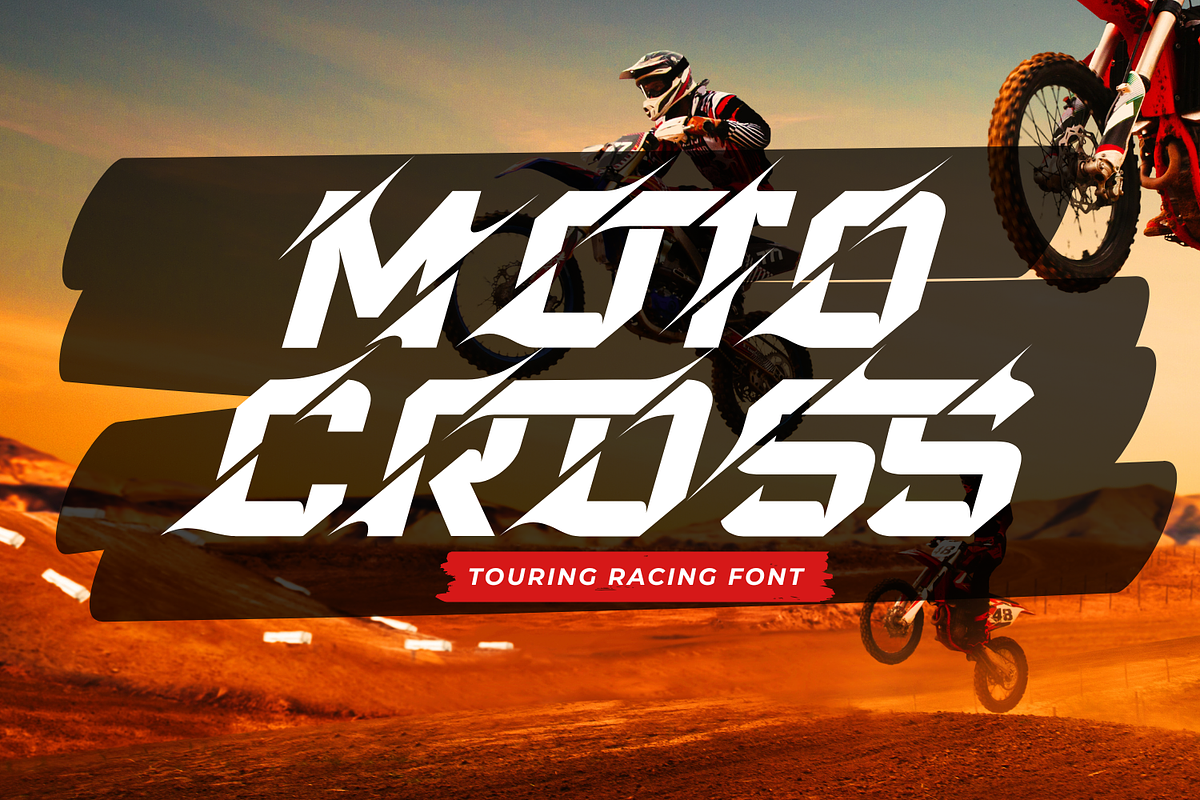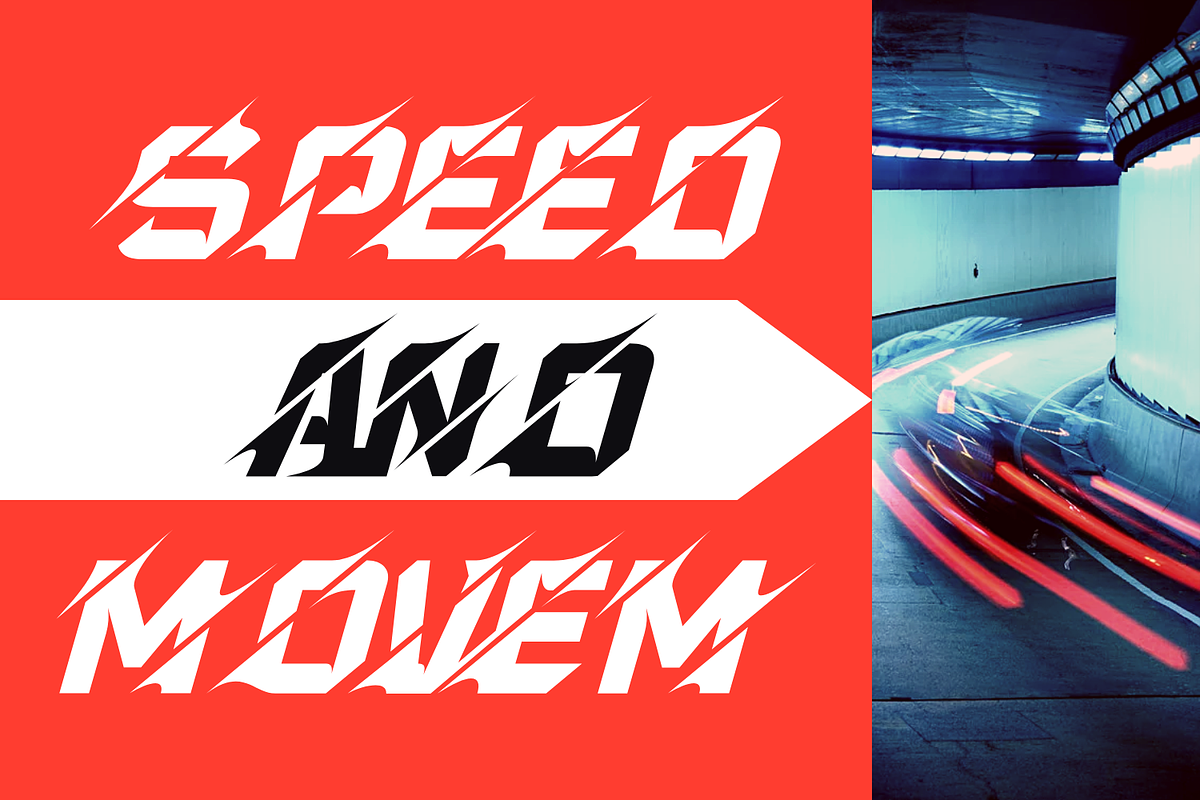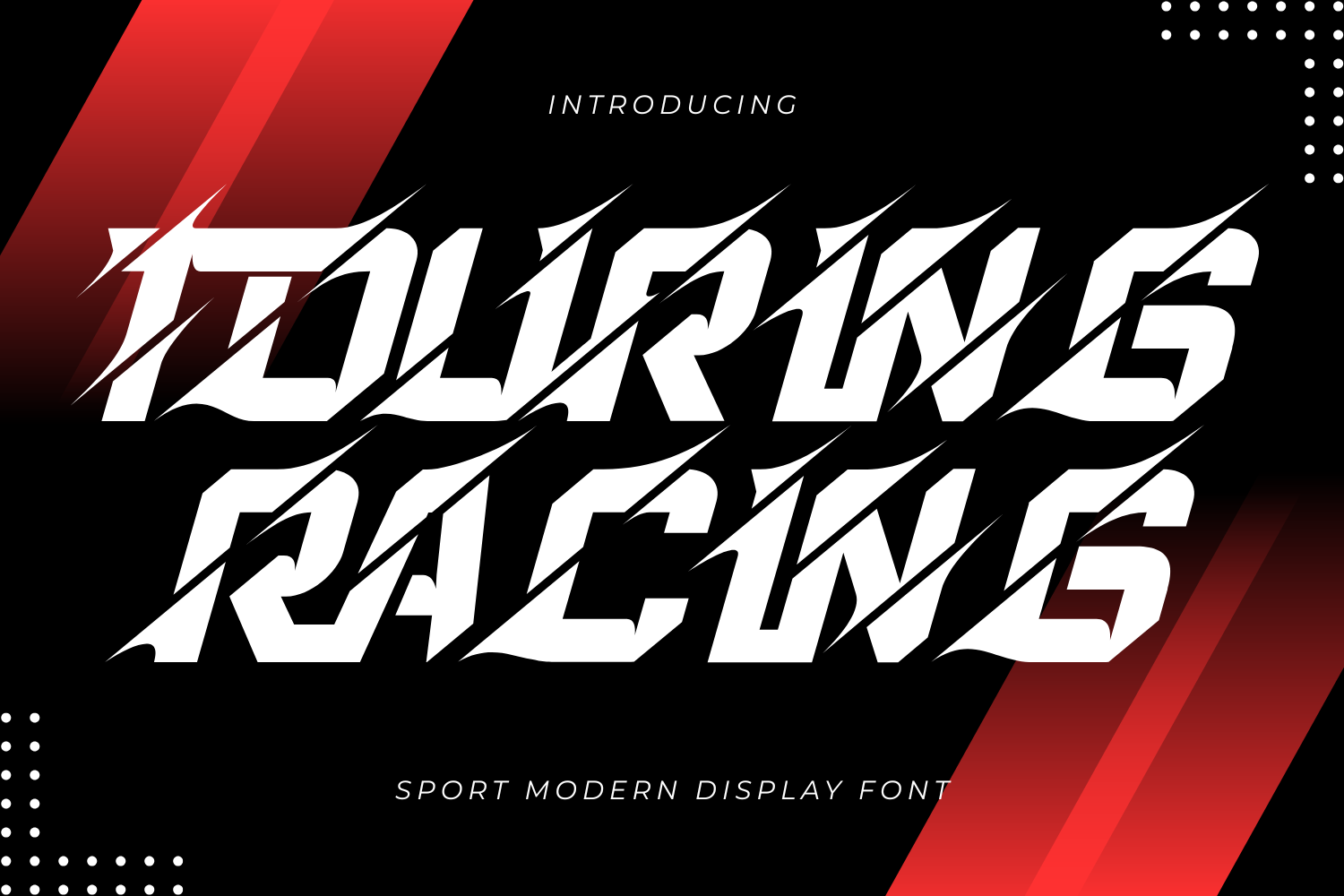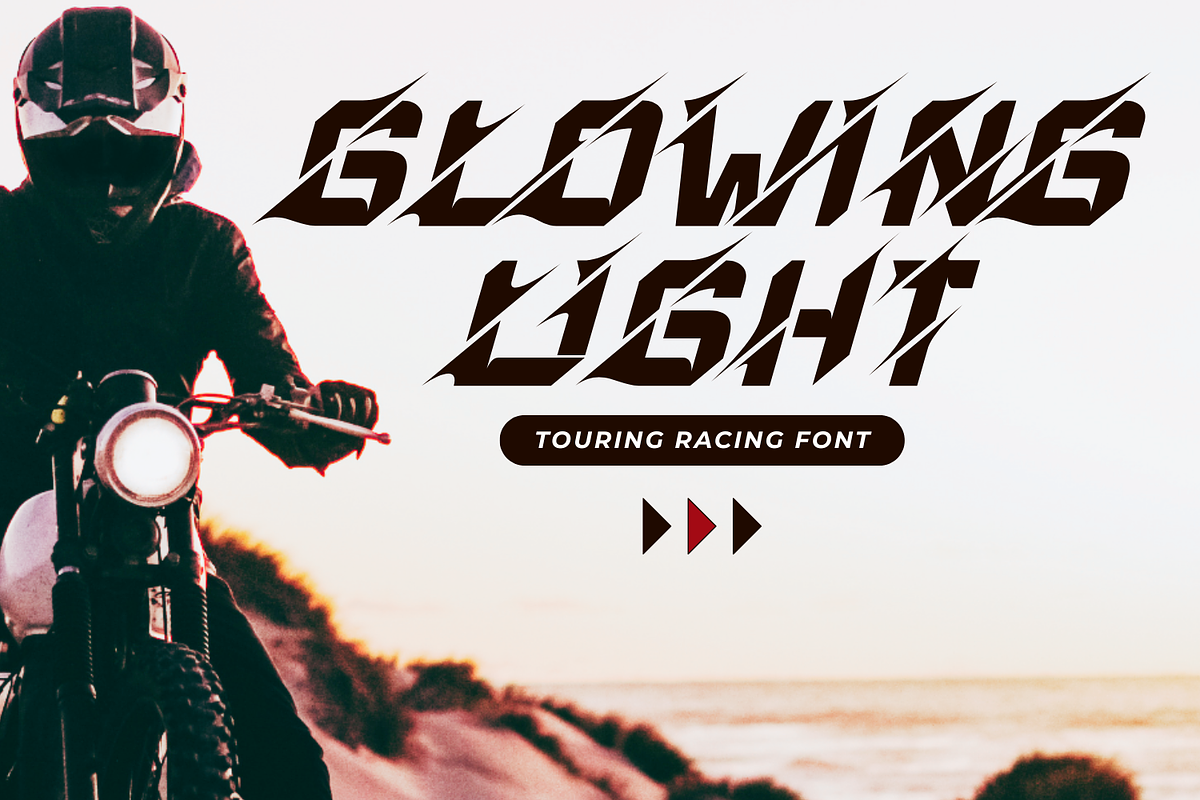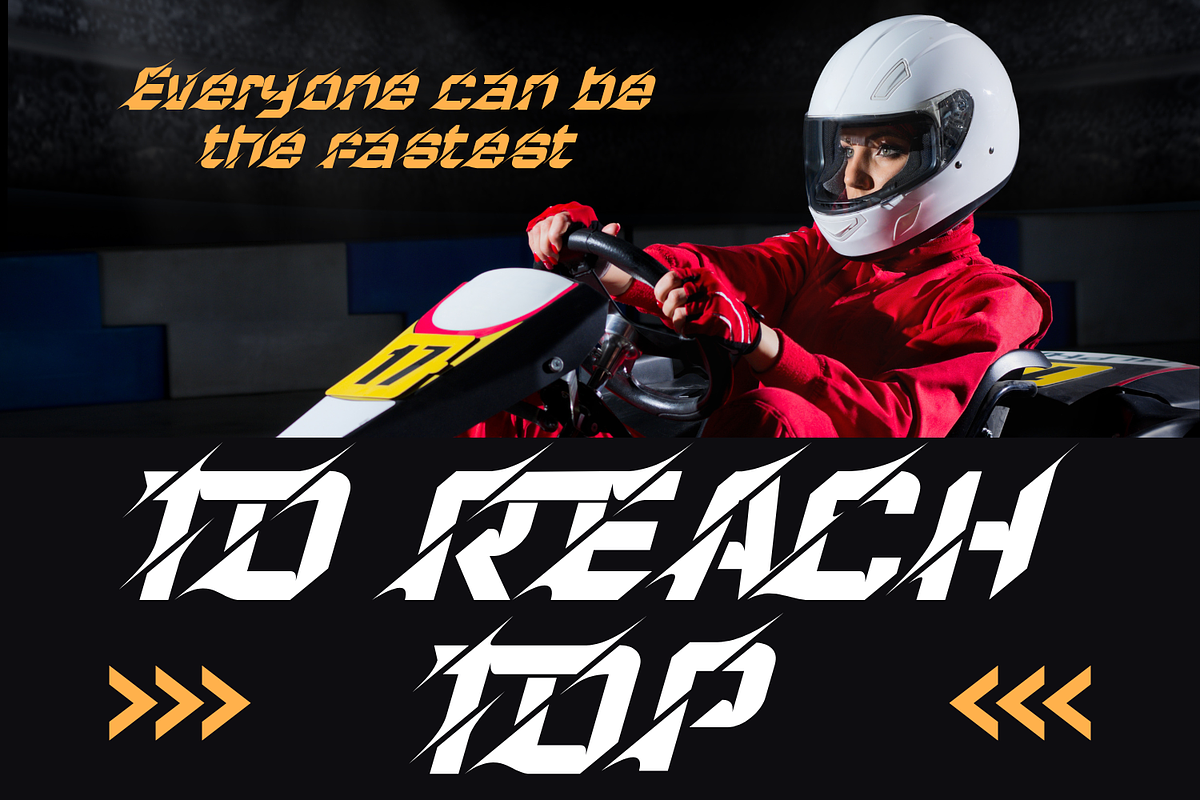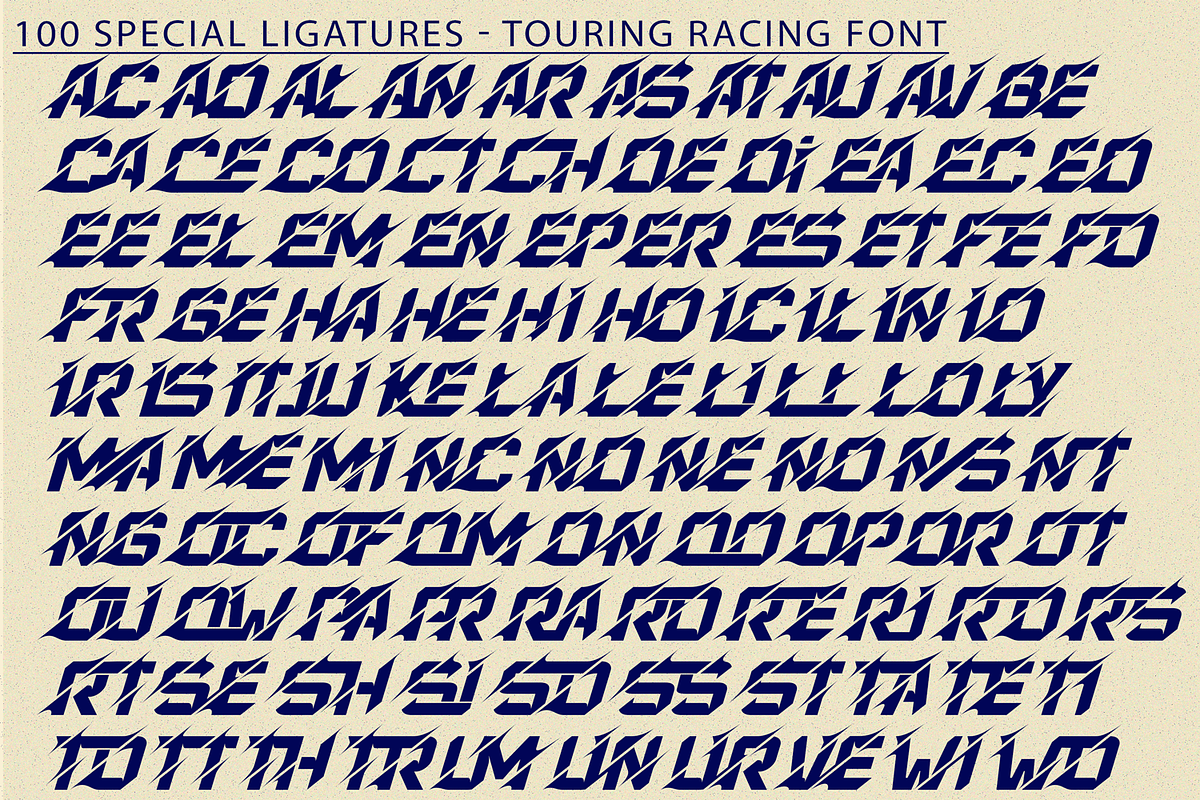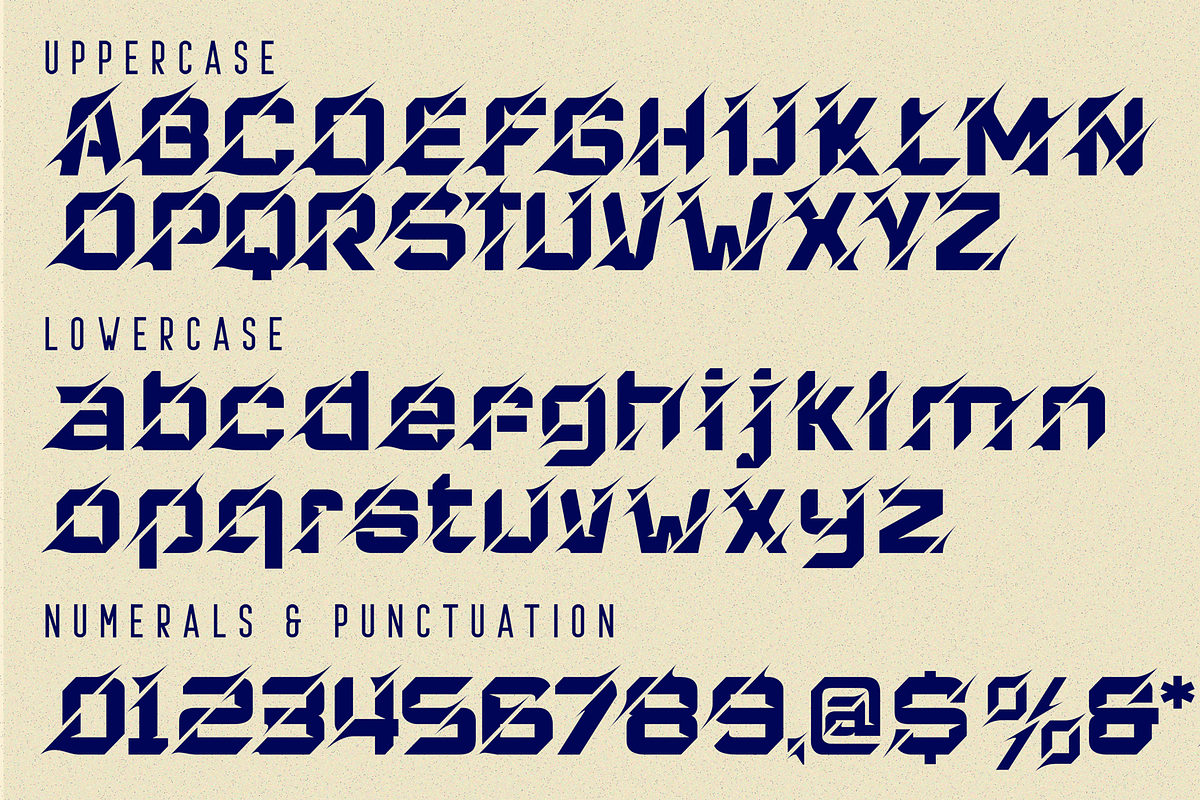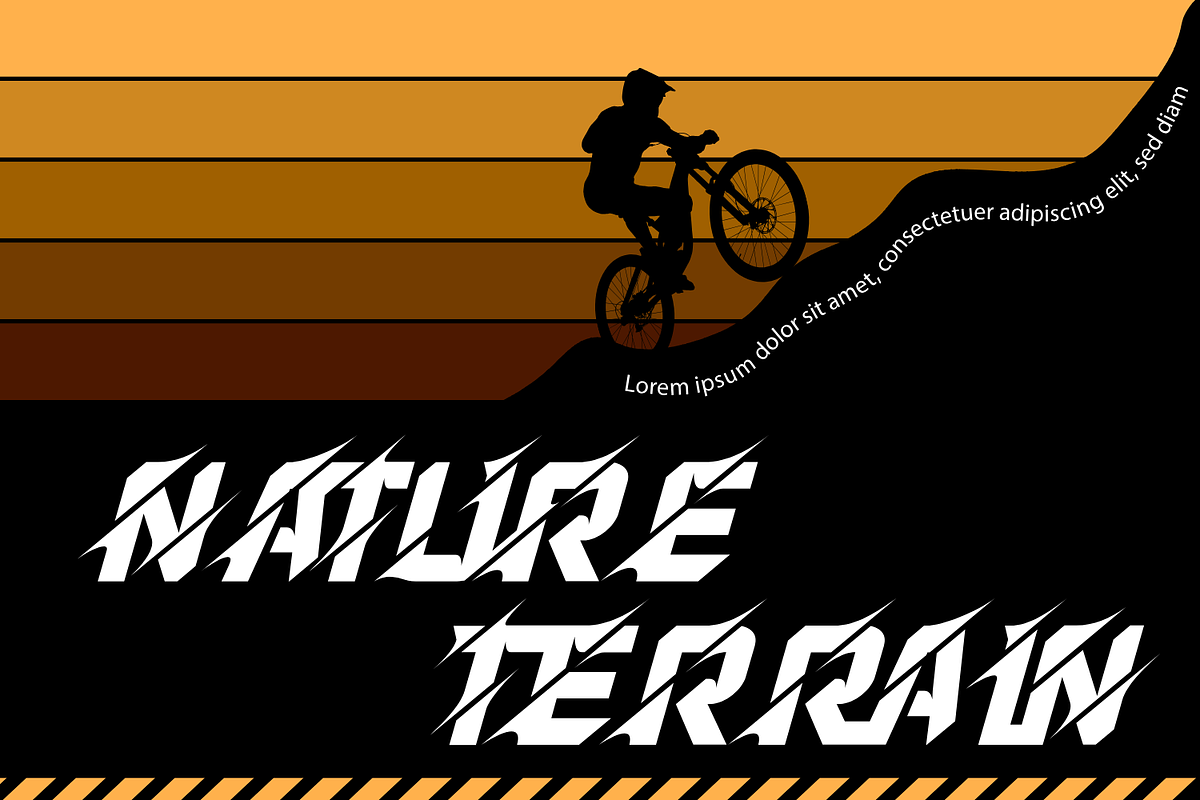
TOURING RACING - Sport Font
TOURING RACING FONT - A Dynamic Modern Sport Font. Unleash the power and speed in your designs with TOURING RACING, a cutting-edge modern display font built for impact. Inspired by the high-octane world of racing and sports, TOURING RACING features an aggressive, sharp design with dynamic cuts and a bold structure that screams energy and motion. Ideal for sports branding, racing posters, automotive themes, game titles, logos, headlines, tech-focused designs, and any project demanding a bold, energetic, and contemporary aesthetic.
✔ Uppercase & Lowercase Letters
✔ 100+ Unique Decorative Ligatures
✔ Numerals & Punctuation
✔ Multilingual Accented Characters
✔ Butterfly-inspired stylistic alternates
About 100 ligatures combined with Stylistic Alternates Font:
AC AD AL AN AR AS AT AU AV BE CA CE CH CO CT DE DI EA EC ED EE EL EM EN EP ER ES ET FE FO FR GE HA HE HI HO IE IC IL IN IO IR IS IT JU KE LA LE LI LL LO LY MA ME MI NC ND NE NG NO NT NS OC OF OM ON OO OP OR OT OU OW PA PR RA RD RE RI RO RS RT SE SH SI SO SS ST TA TE TH TI TO TR TT UM UN UR VE WI WO